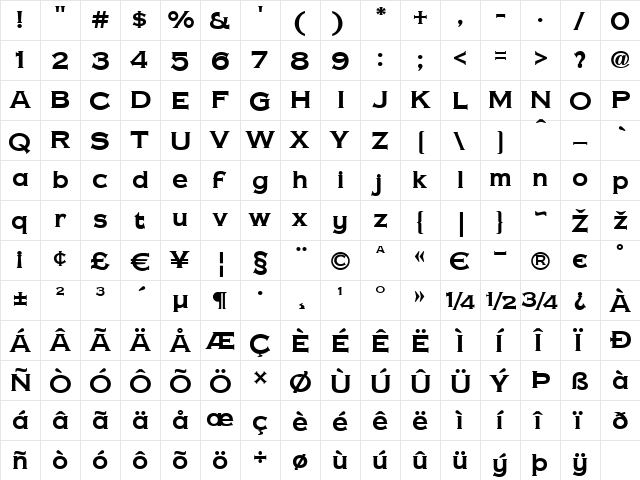
Copper Penny DTP Regular
| Foundry | The Fontry & JLS |
Design Context for Copper Penny DTP Typeface
Copper Penny DTP offers clean, dependable letterforms without strong stylistic allegiance, making it a practical choice for designers who need flexibility.